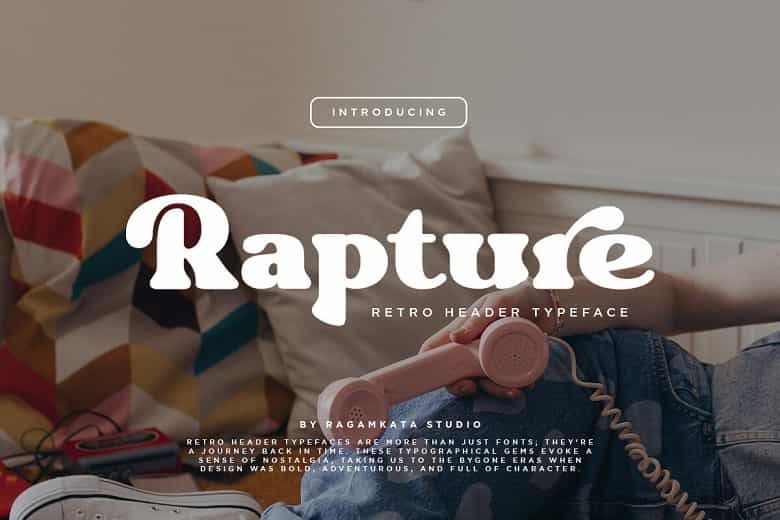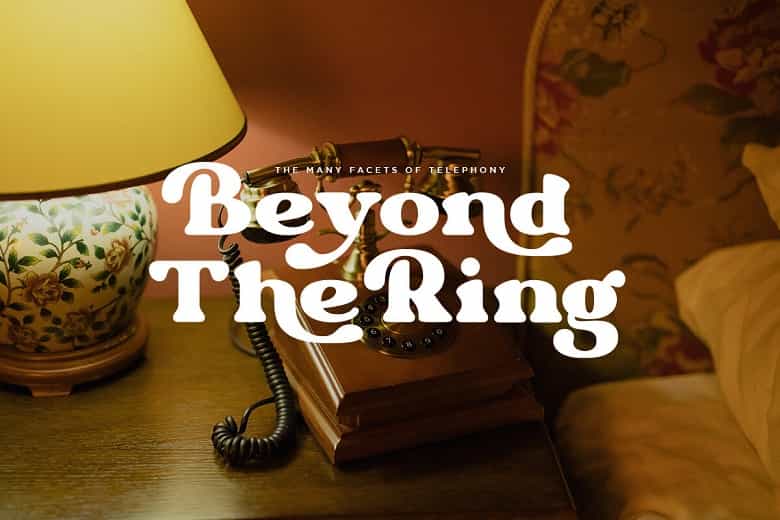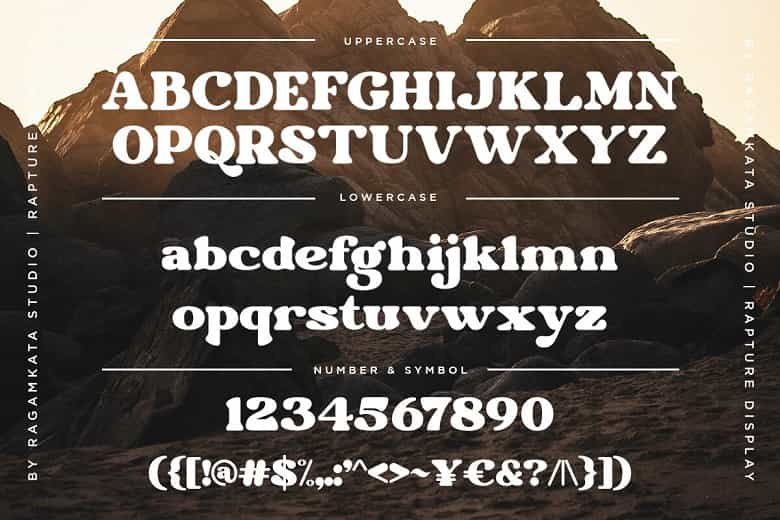
Rapture is a retro serif font that has a vintage feel and look to it in addition to having some zest. Styling its design on retro models, this font gives an elegant look and creates a feeling of nostalgia. Every single letter is designed with a great deal of precision and in proportions that give the letters their distinctive look.